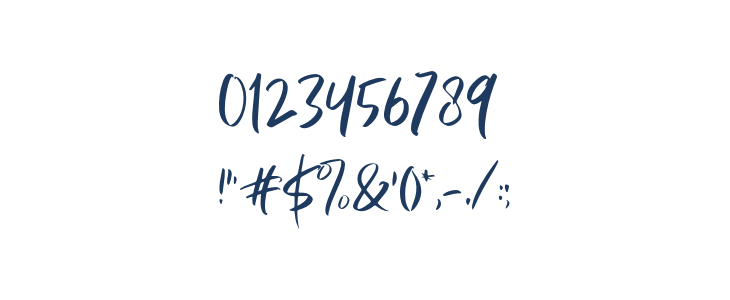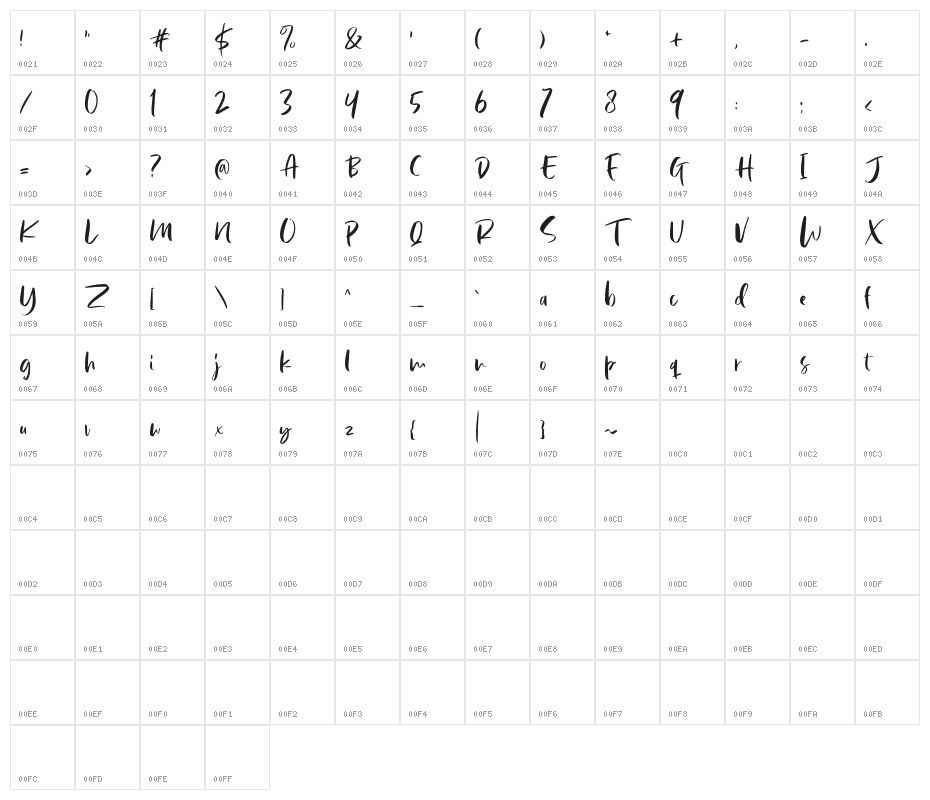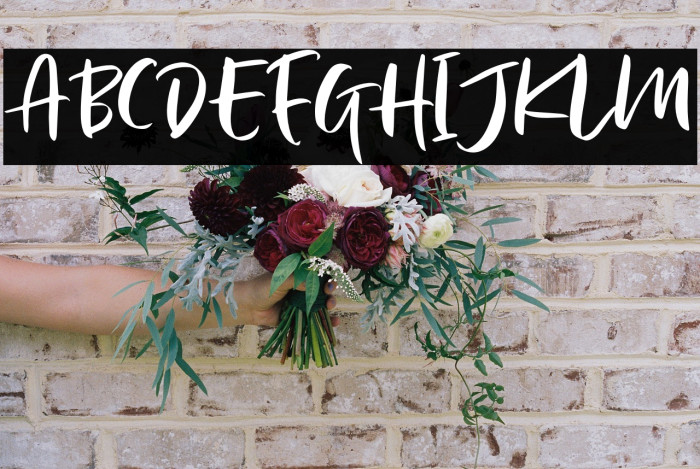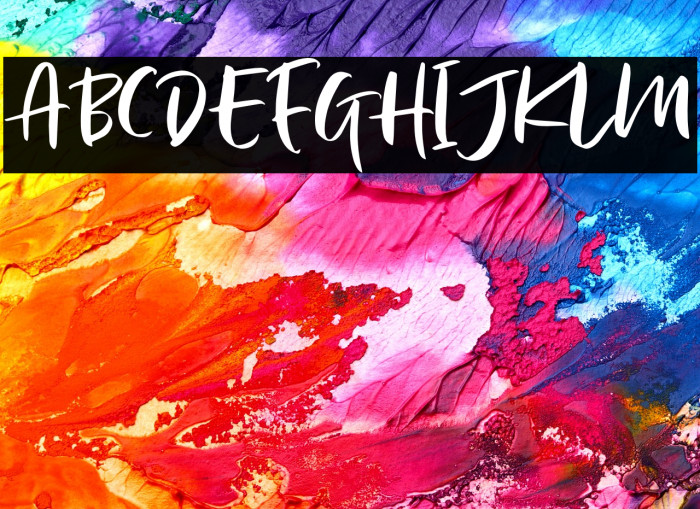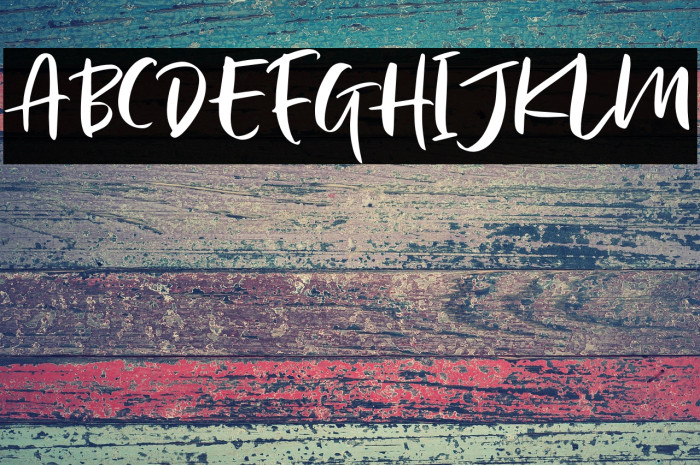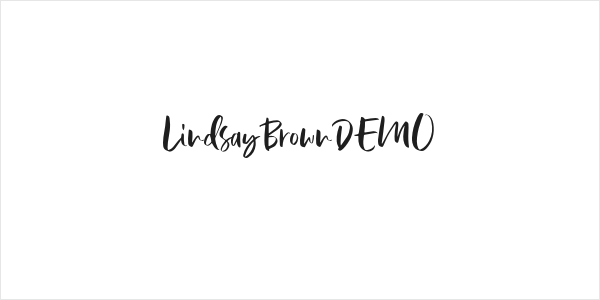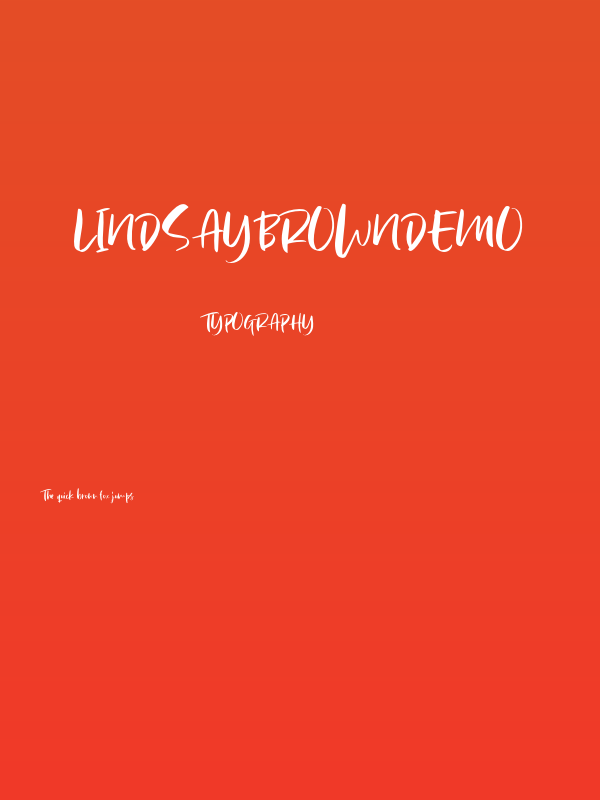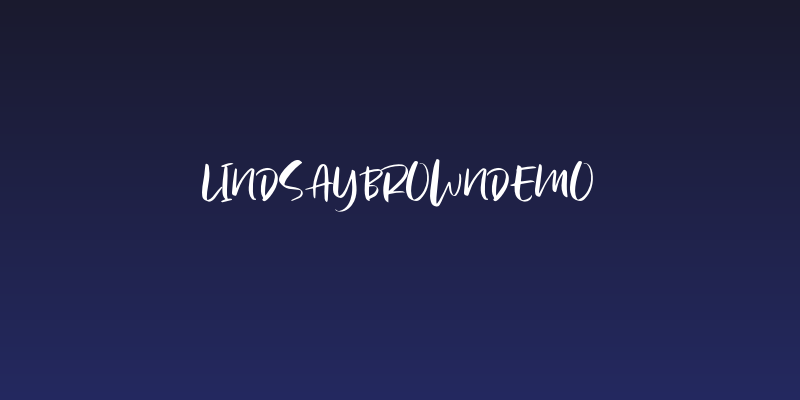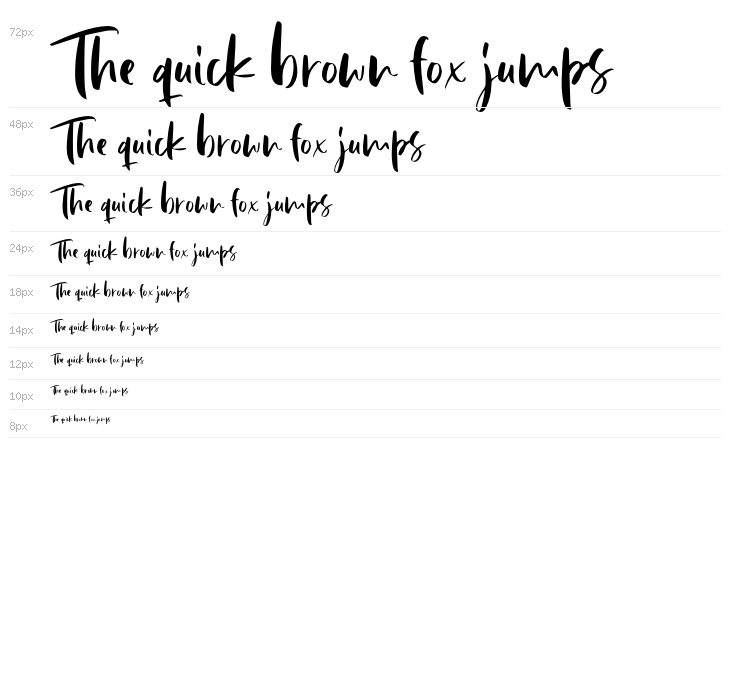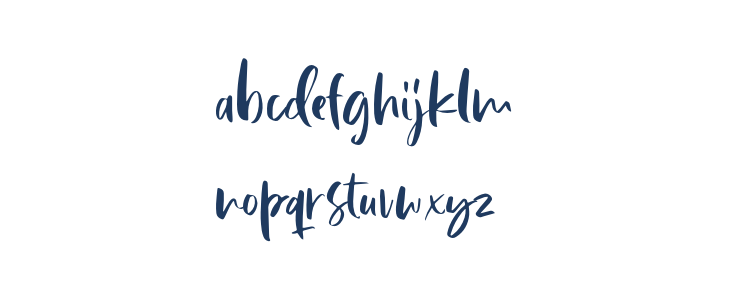
LindsayBrownDEMO Font
LindsayBrownDEMO Description
This font exudes a lively and dynamic energy, characterized by its bold, brush-like strokes that give it a handwritten appearance. The letters are slightly slanted, adding a sense of motion and fluidity. The uppercase characters are tall and commanding, while the lowercase letters maintain a consistent flow, enhancing readability. Numbers and special characters are crafted with the same expressive style, making them stand out. The overall design is both artistic and approachable, suitable for projects that require a personal touch.
| Proposed Projects | Ideal for branding, invitations, greeting cards, and social media graphics where a personal and artistic touch is desired. |